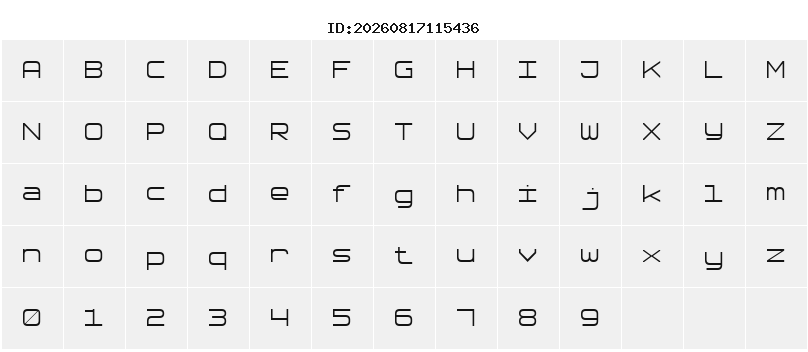
Software Tester 7 Preview
• Font Name: Software Tester 7
• Full Font Name: Software Tester 7
• Designer: Sizenko Alexander
• Manufacturer: Style-7
About Software Tester 7.ttf
Software Tester 7.ttf is a modern, elegant sans-serif font designed for ultimate readability and visual harmony. Perfect for branding, headlines, web design, and print materials.